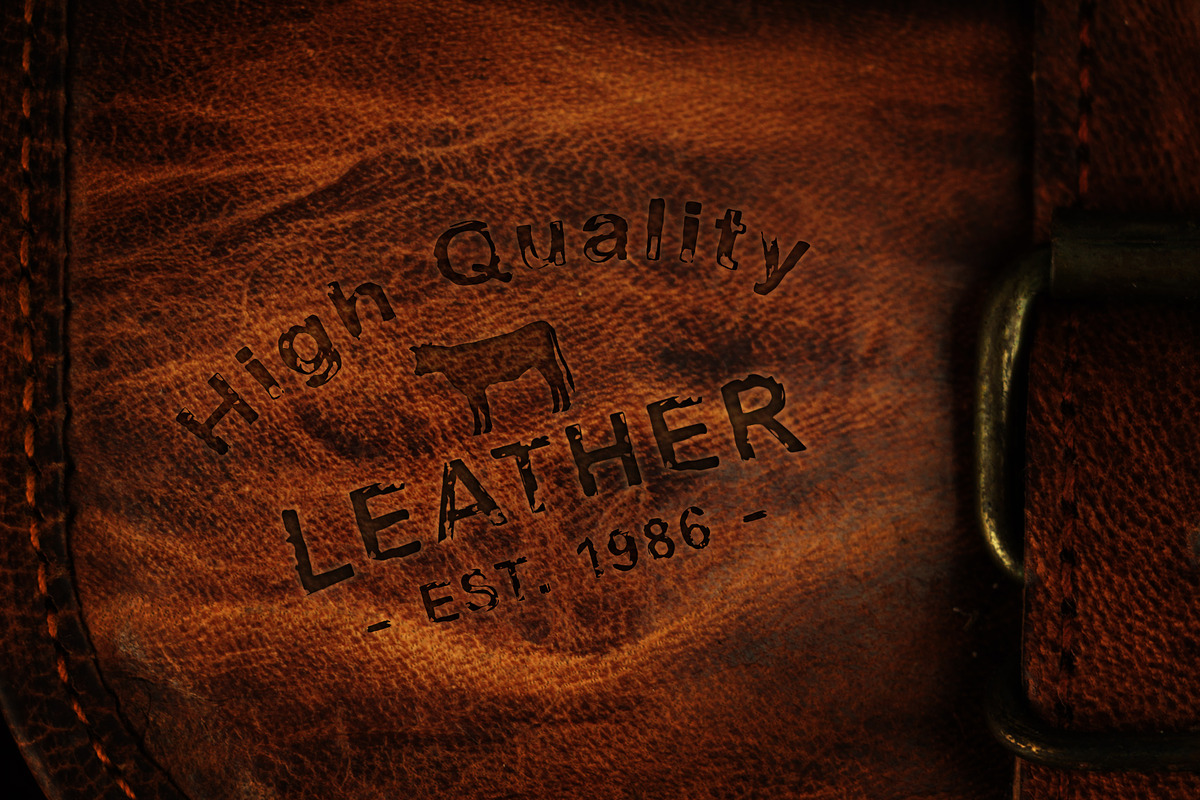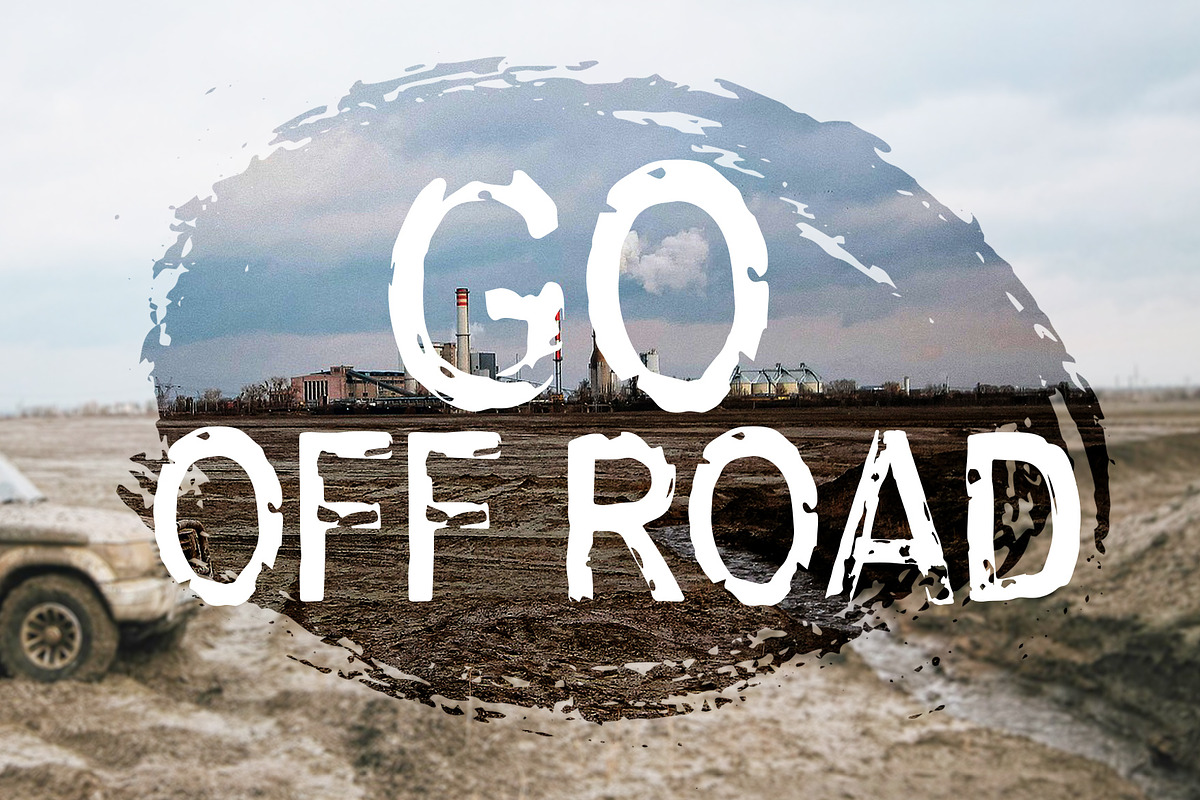
Stamp
Introducing the 'Stamp' - rough and aged, but very simple imprinted font!
Stamp is a sans-serif display typeface in a grungy, handmade style. This font is ideal for creating vintage logos, badges, labels, typographic images, greetings cards, and different apparel design.
Stamp comes with English language support, uppercase and lowercase letters, a full set of numbers, and a wide range of punctuation and symbols.